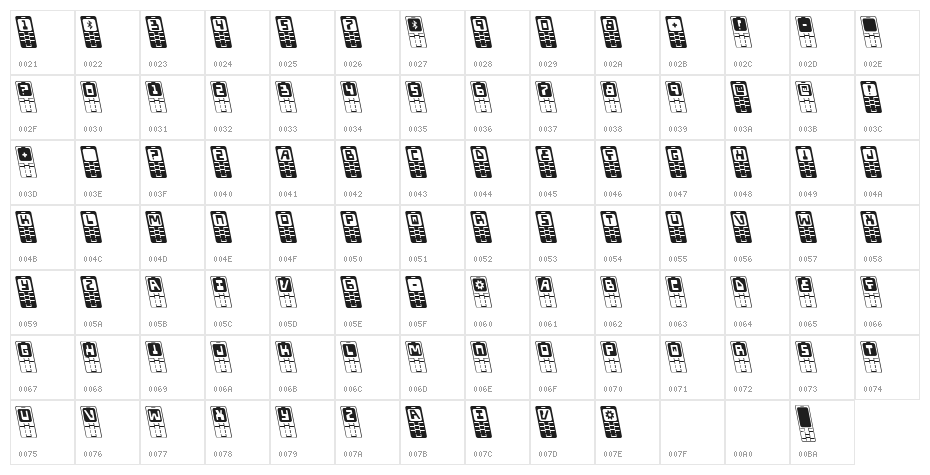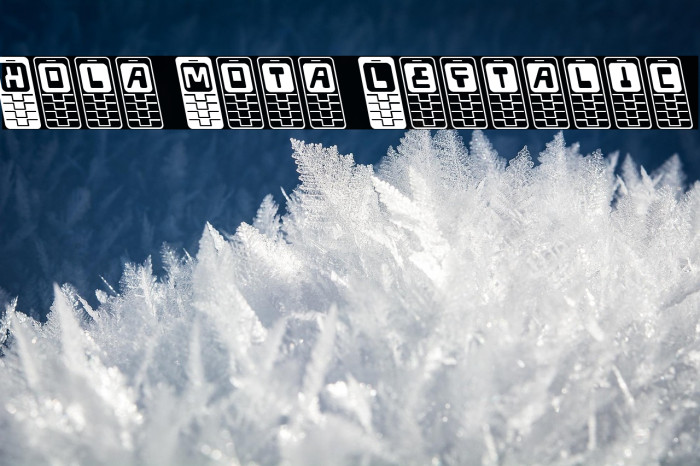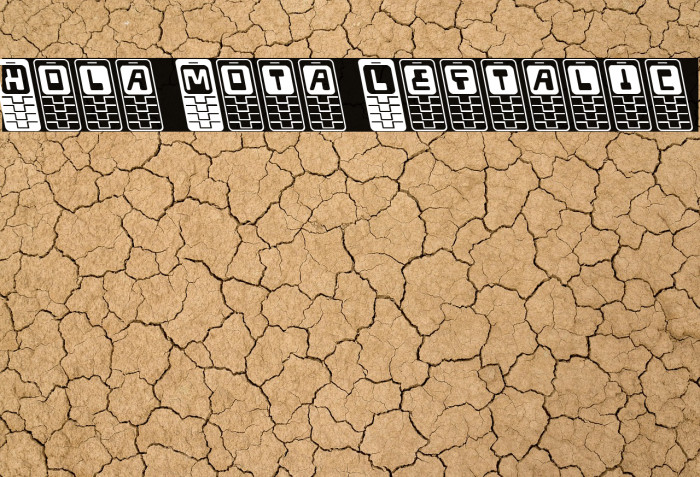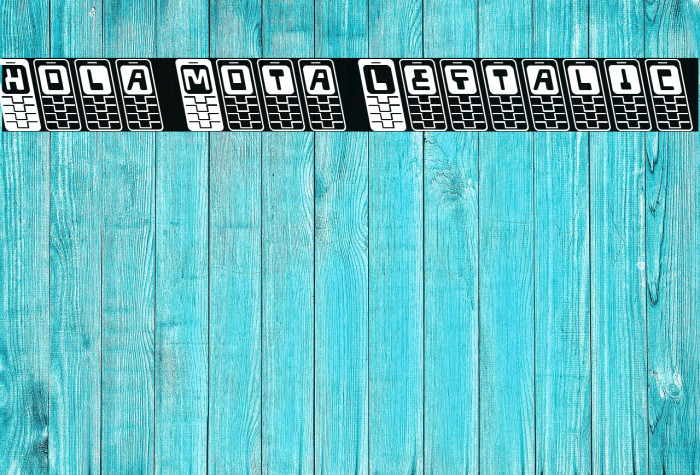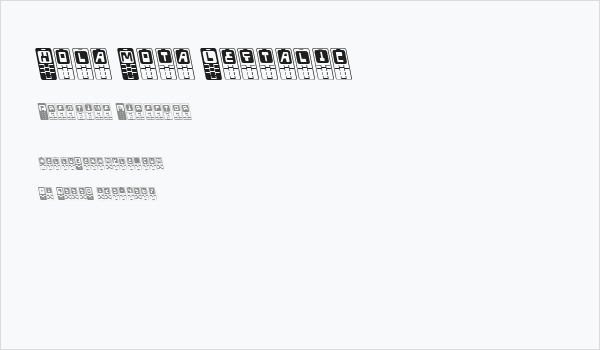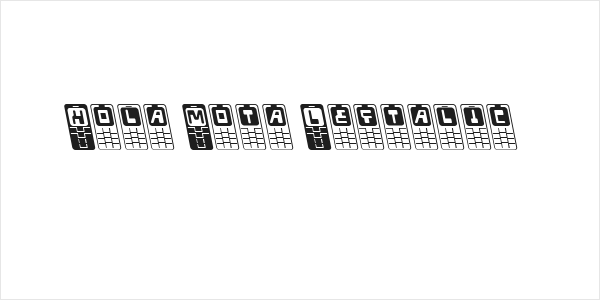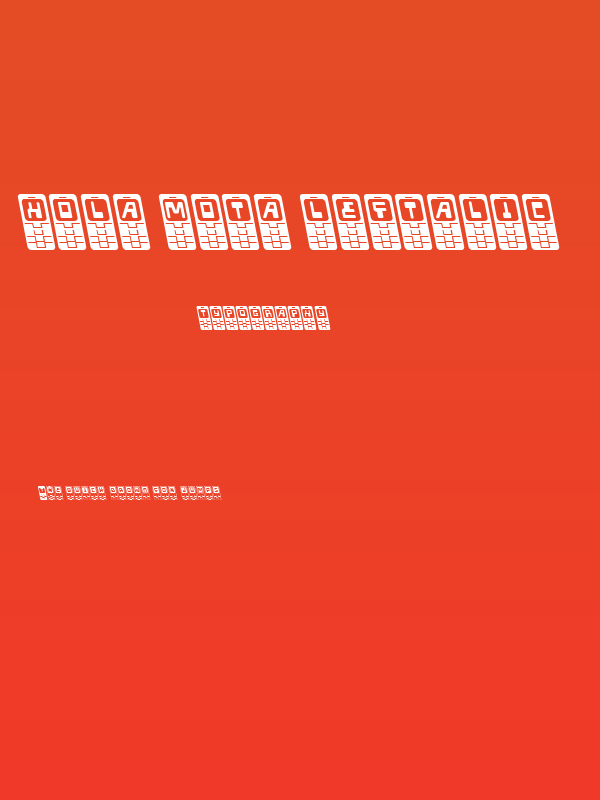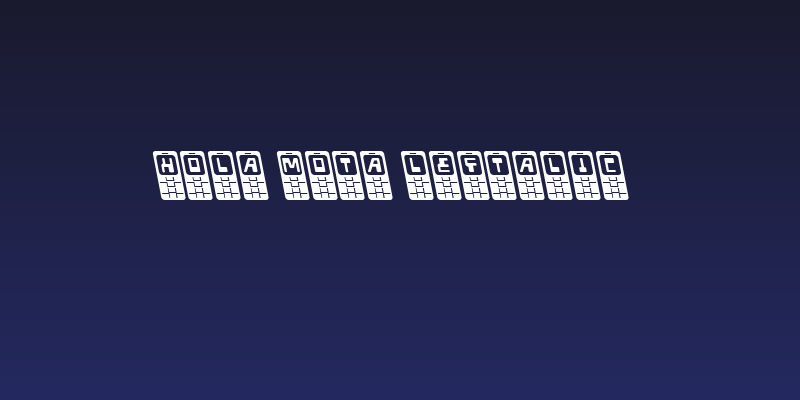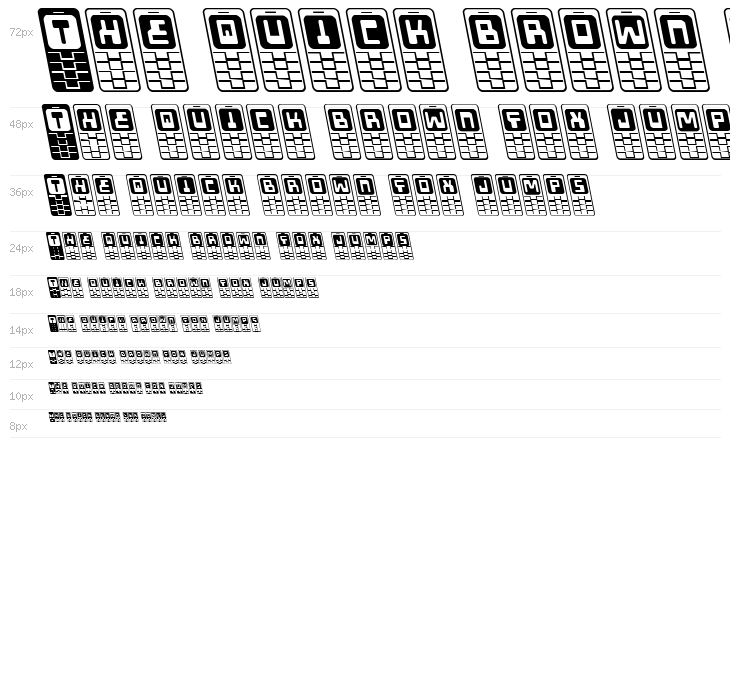
Hola Mota Leftalic Font
Hola Mota Leftalic Description
This font features a unique and playful design, reminiscent of retro mobile phone keypads. Each character is encased in a rectangular shape with rounded corners, giving it a distinct, blocky appearance. The letters and numbers are bold and slightly tilted, adding a dynamic and quirky feel. The font's style is both nostalgic and modern, making it suitable for projects that aim to capture a sense of fun and innovation. The characters are evenly spaced, ensuring readability while maintaining a cohesive look. This font is perfect for creative projects that require a touch of whimsy and a nod to past technology.
| Overall Style | Modern, Retro |
| Proposed Projects | Ideal for tech-themed designs, retro posters, playful branding, and creative digital media. |